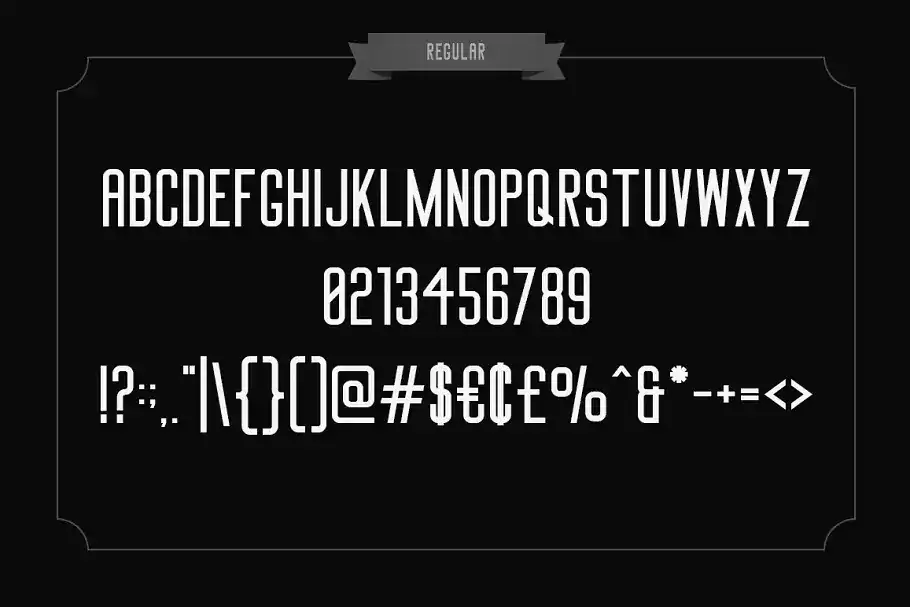
Big Stem Font
The Big Stem Font Family is now available! A new sans serif font family. Boris Garic created and published the font. Big Stem is a six-weighted all-caps condensed typeface. Historic commercial headlines inspired the font in New York’s downtown area. Light, Regular, Bold, Light Oblique, and Bold Oblique are the current Big Stem options. North, south, and central Europe are all supported by the font.
There aren’t many typefaces that look nice with old content, but this one seems to be one of them. It may be used in any retro project and will add beauty to it. But don’t believe it’ll only look well in old projects; it’ll also look great in current ones. The Font is compatible with Windows, Apple/Mac, Linux, Cricut, Silhouette, and other cutting machines. It’s simple to convert the lovely typography to a web font. OTF and TTF are the two formats in which the Typeface is offered. This font is made for you if you require a modern concept based project with retro sensations. Give it a try.
All those projects where you’re portraying old cities would look great with this Typeface. The Typeface adds a splash of colour and elegance to whatever project it’s employed in. The font has already been utilized in a number of publications where a retro feel is desired. Big Stem is also used for headlines, logotypes, and other large, eye-catching elements.
| Name | Big Stem Font |
| Style | Sans-Serif. |
| Designer | Boris Garic |